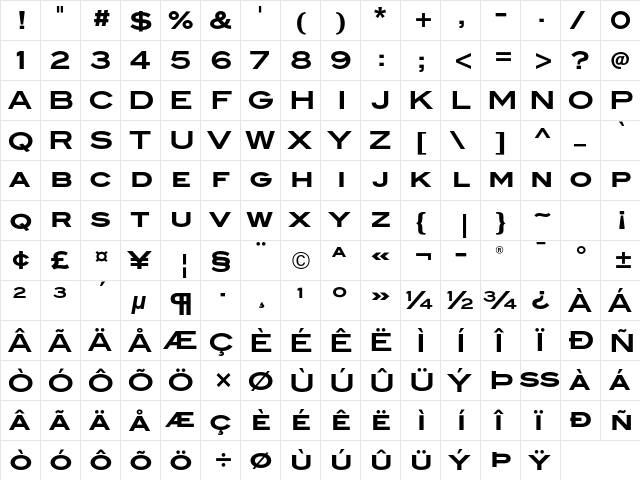
Blair ITC Std Bold
| Designer | Jim Spiece |
Design Context for Blair ITC Std Typeface
Blair ITC Std is a composed and adaptable typeface that performs quietly and consistently across a wide range of design contexts. The heavy weight commands attention and anchors typographic hierarchies.